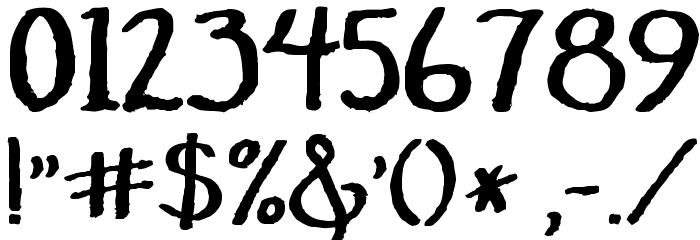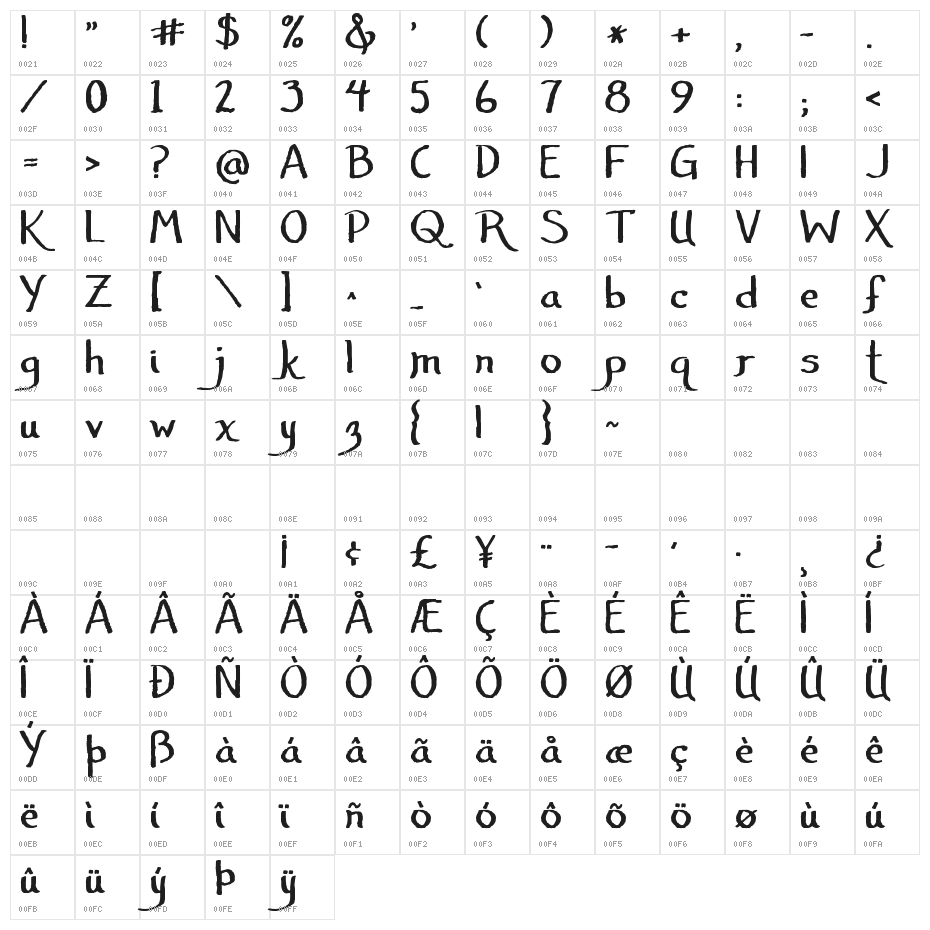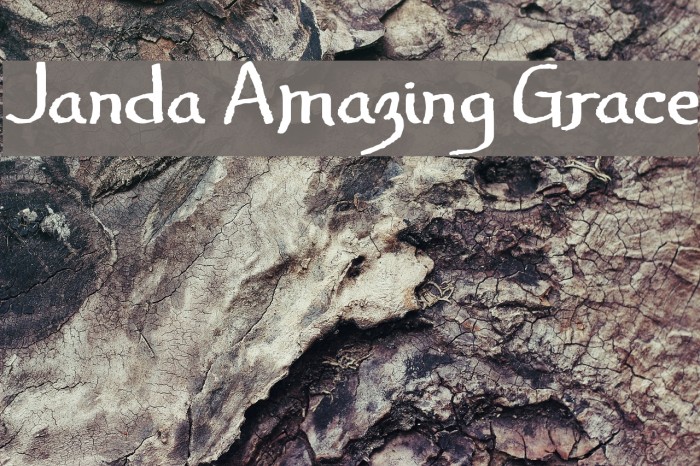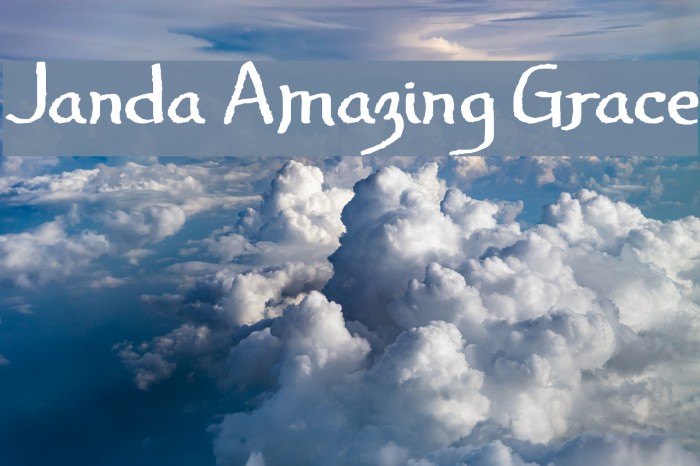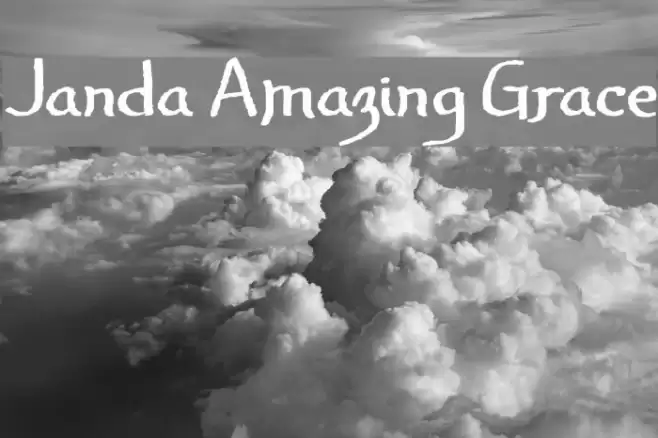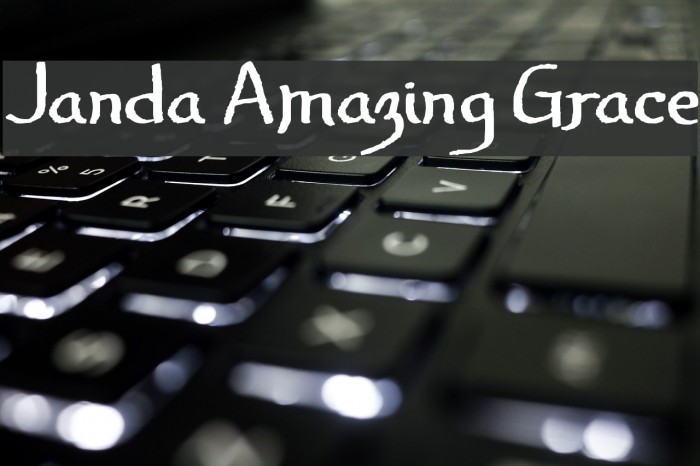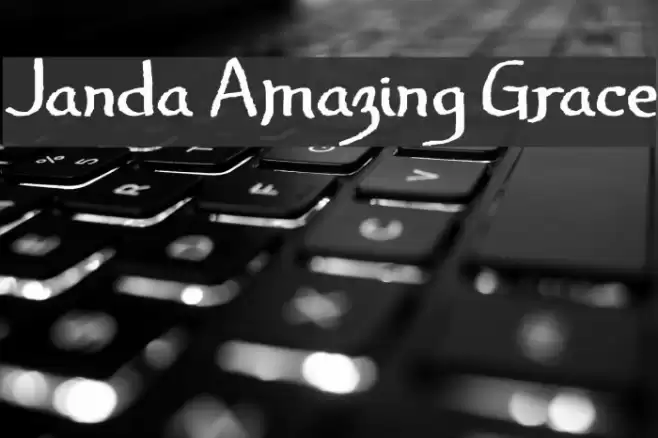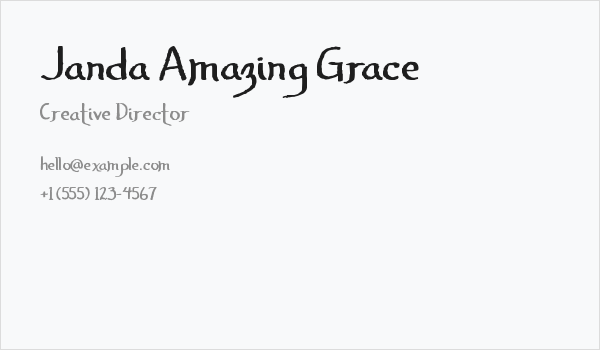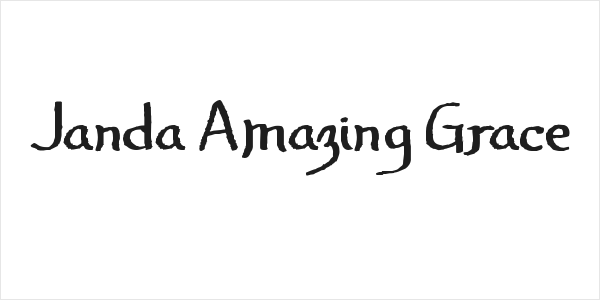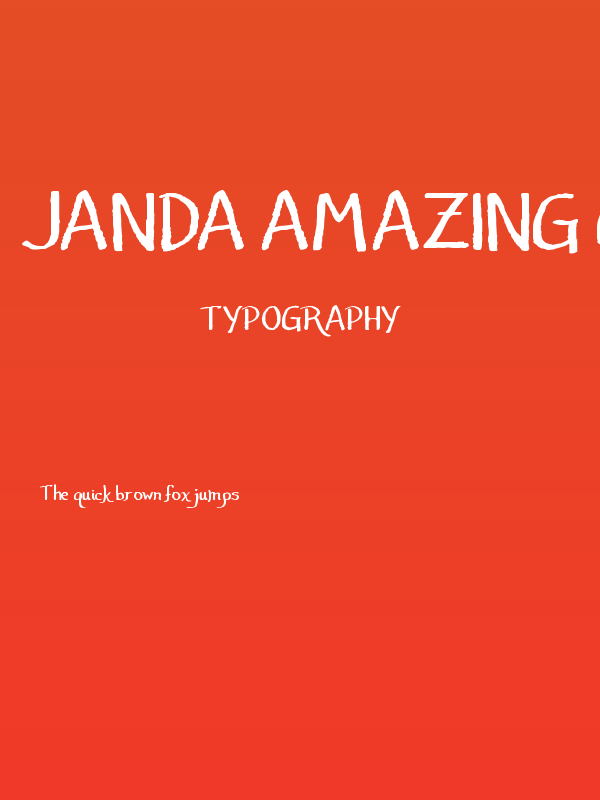
Janda Amazing Grace Font
Janda Amazing Grace Description
This font exudes a playful and artistic vibe, characterized by its hand-drawn appearance. The letters have a whimsical, uneven stroke that gives them a lively and informal feel. The uppercase and lowercase letters maintain a consistent style, with slightly exaggerated curves and varying line thicknesses that add to the font's charm. The numbers and special characters follow the same playful aesthetic, making the font versatile for creative projects. Its unique style makes it stand out, perfect for adding a personal touch to any design.
| Proposed Projects | Ideal for greeting cards, children's books, playful branding, and creative posters. |